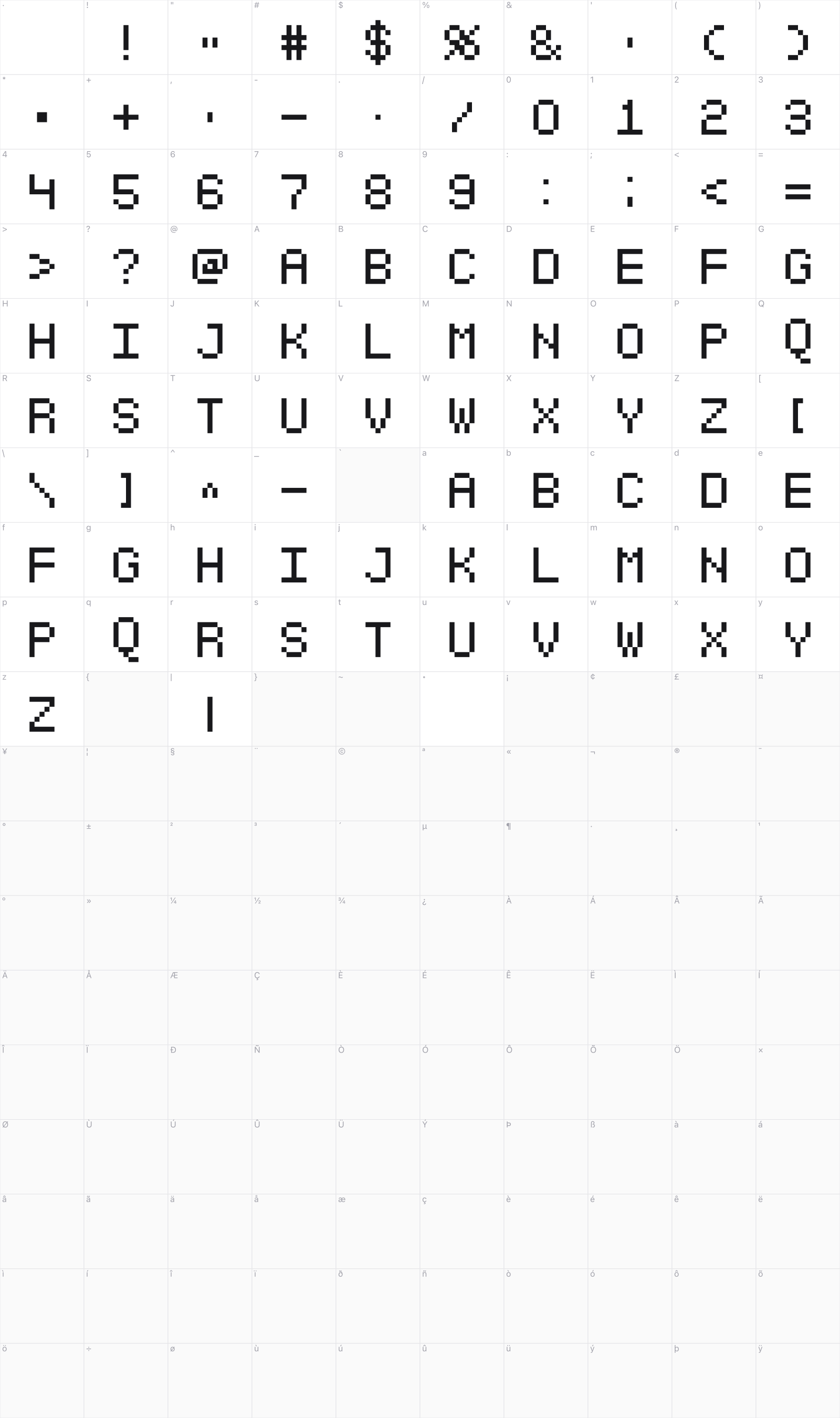
SGK001
SGK001 is a bold bitmap face from NewMoleFont with chunky, blocky letterforms rooted in 8-bit aesthetics. The monospace grid keeps everything rigid and mechanical, giving it the feel of early computer terminal output or retro game text. Best at larger sizes for headlines, pixel art projects, and digital nostalgia where clean rendering matters less than raw character.